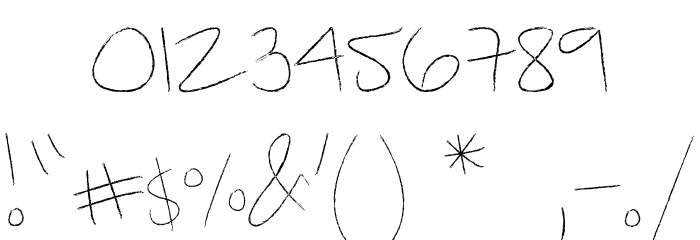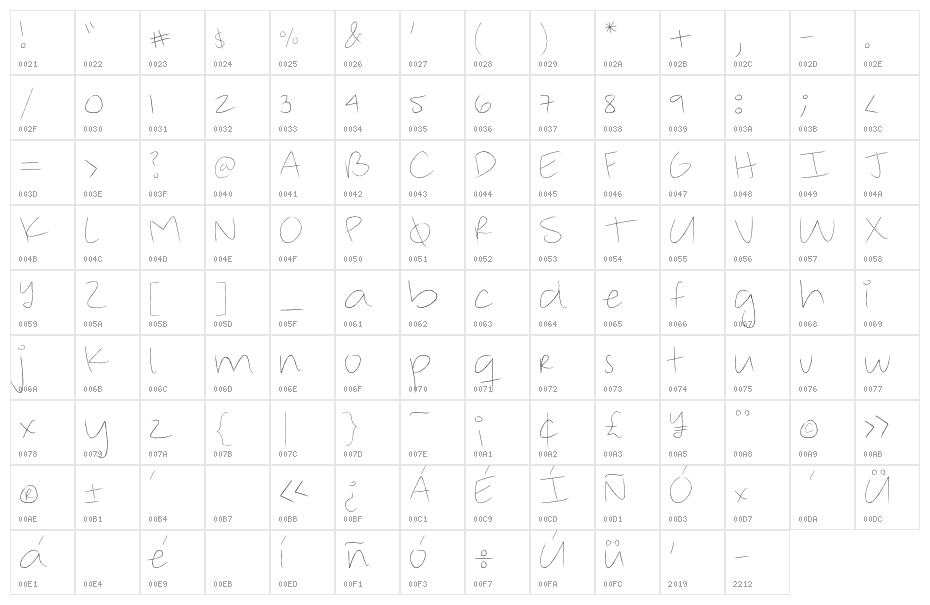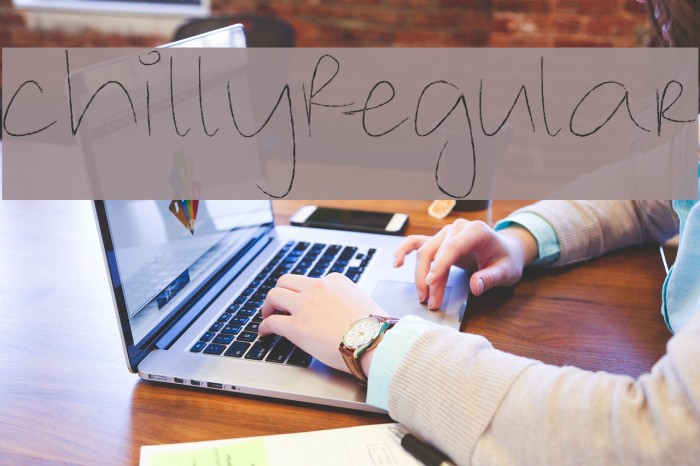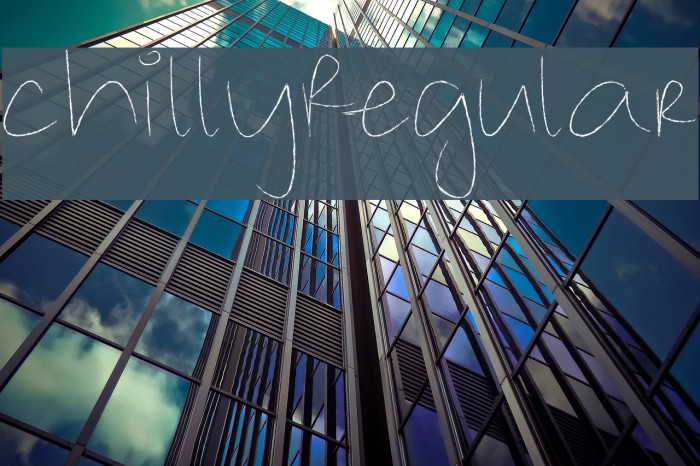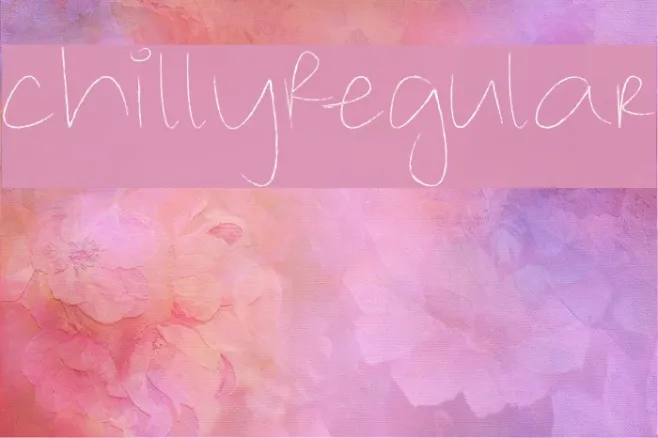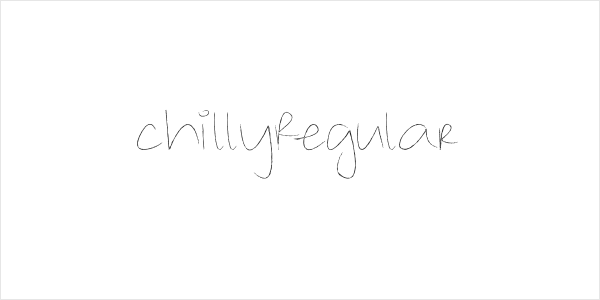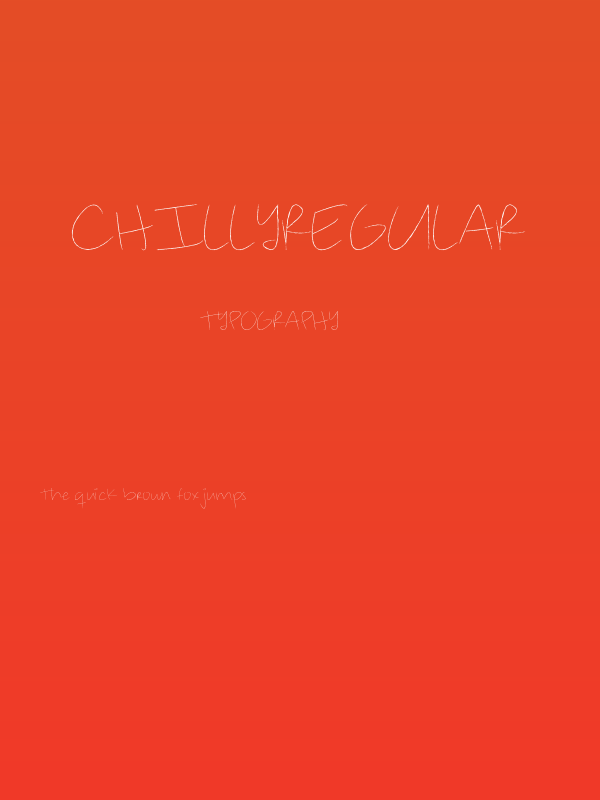
chillyRegular Font
chillyRegular Description
This font exhibits a casual and playful handwritten style, characterized by its loose and flowing strokes. The letters are slightly irregular, giving it an organic and personal touch. The uppercase and lowercase letters maintain a consistent style, with a slight slant that adds to its informal appearance. The numerals and special characters follow the same handwritten aesthetic, ensuring a cohesive look across all glyphs. The strokes are thin, with low contrast, emphasizing a light and airy feel. This font is ideal for projects that require a personal or whimsical touch, such as greeting cards, invitations, or informal branding.
| Use Case | Informal text, personal projects, decorative purposes. |
| Proposed Projects | Greeting cards, invitations, informal branding, personal notes. |